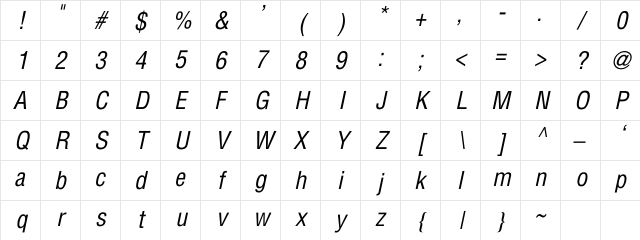
SwitzerlandCondensedItalic Regular
Design Context for SwitzerlandCondensedItalic
SwitzerlandCondensedItalic is a composed and adaptable typeface that performs quietly and consistently across a wide range of design contexts. The slanted form adds forward momentum and visual energy. Its narrow stance lets it pack a punch even in space-constrained designs.
Pro Tip: Use SwitzerlandCondensedItalic for emphasis, pull quotes, and subheadings where its slanted energy can add rhythm to the layout.